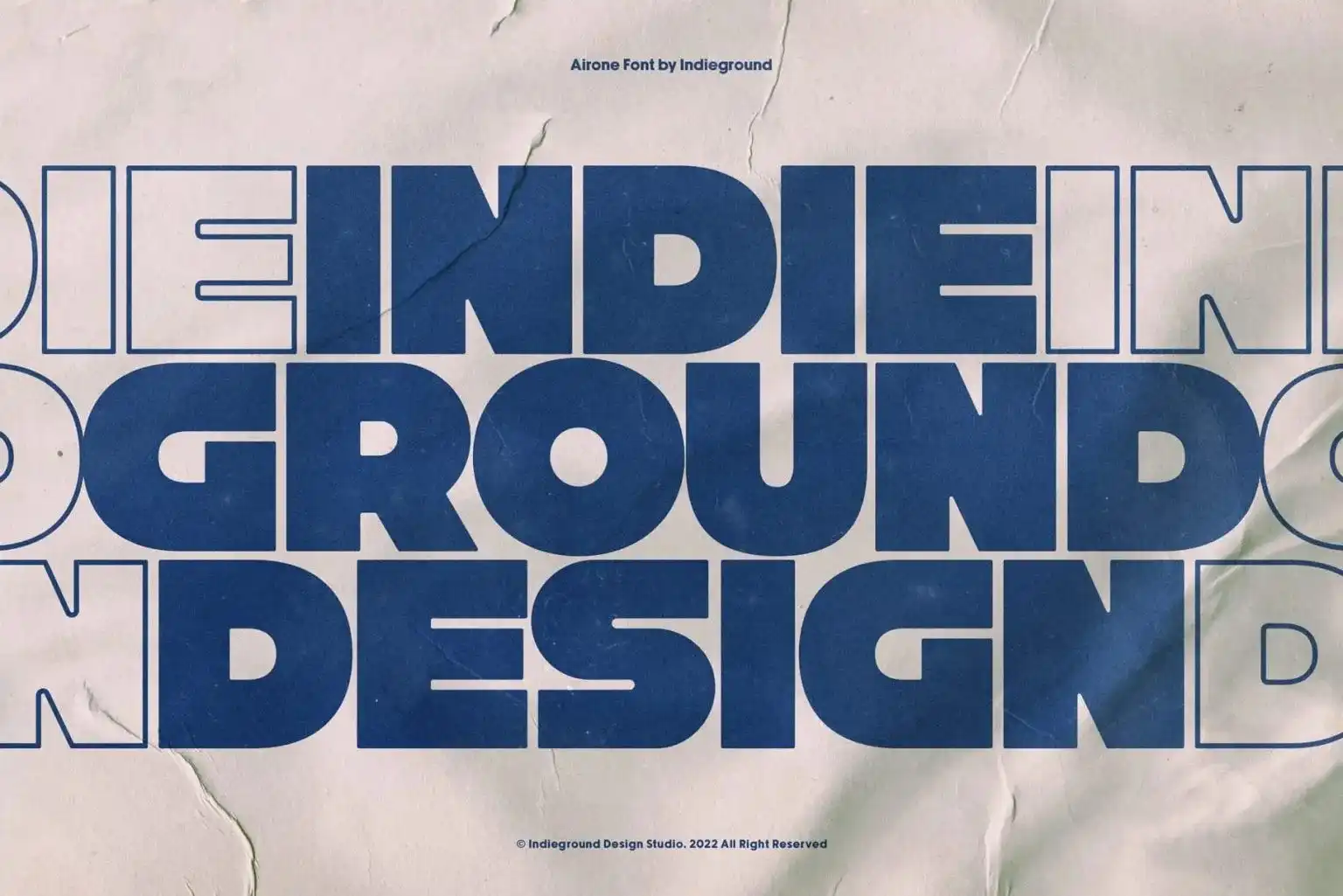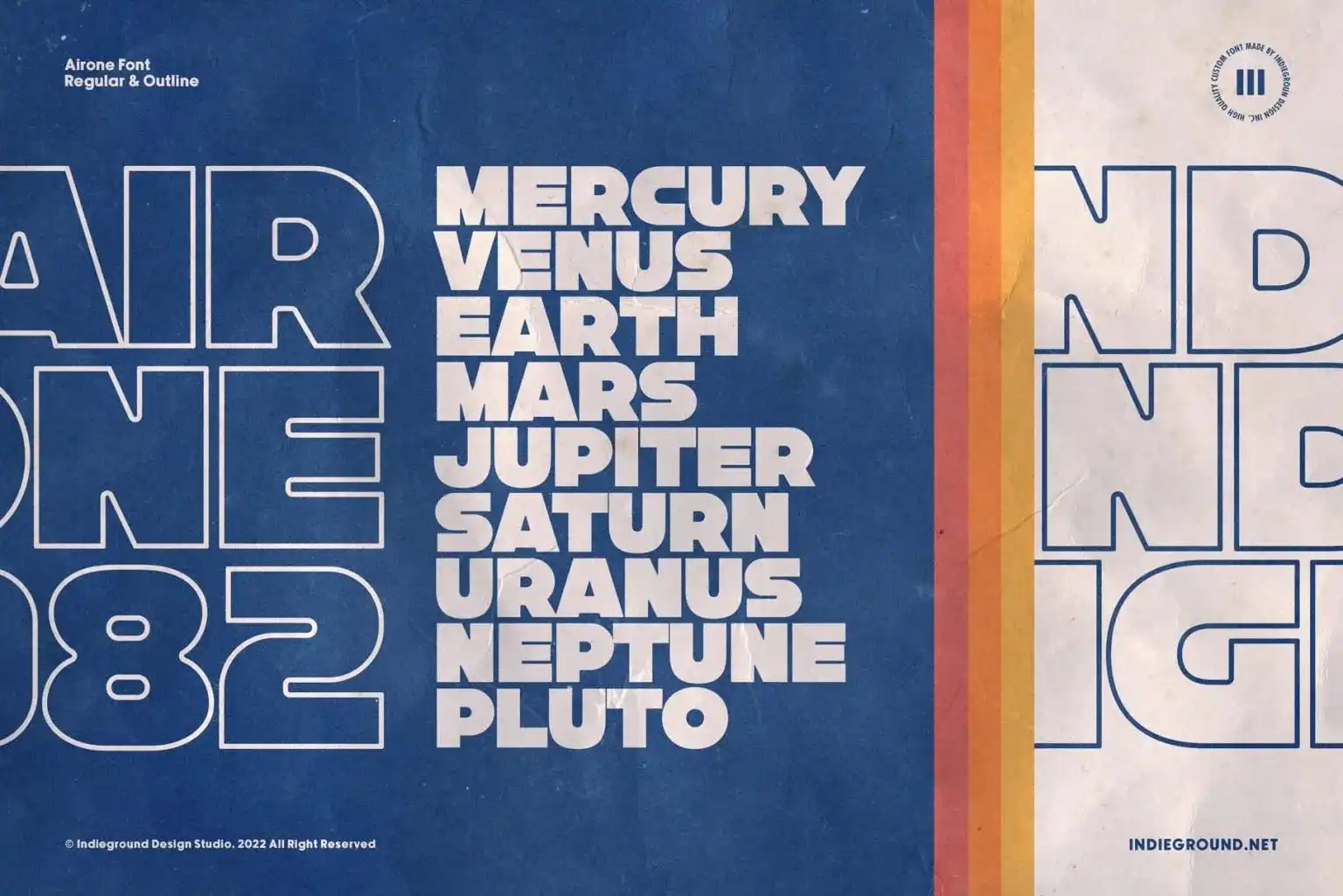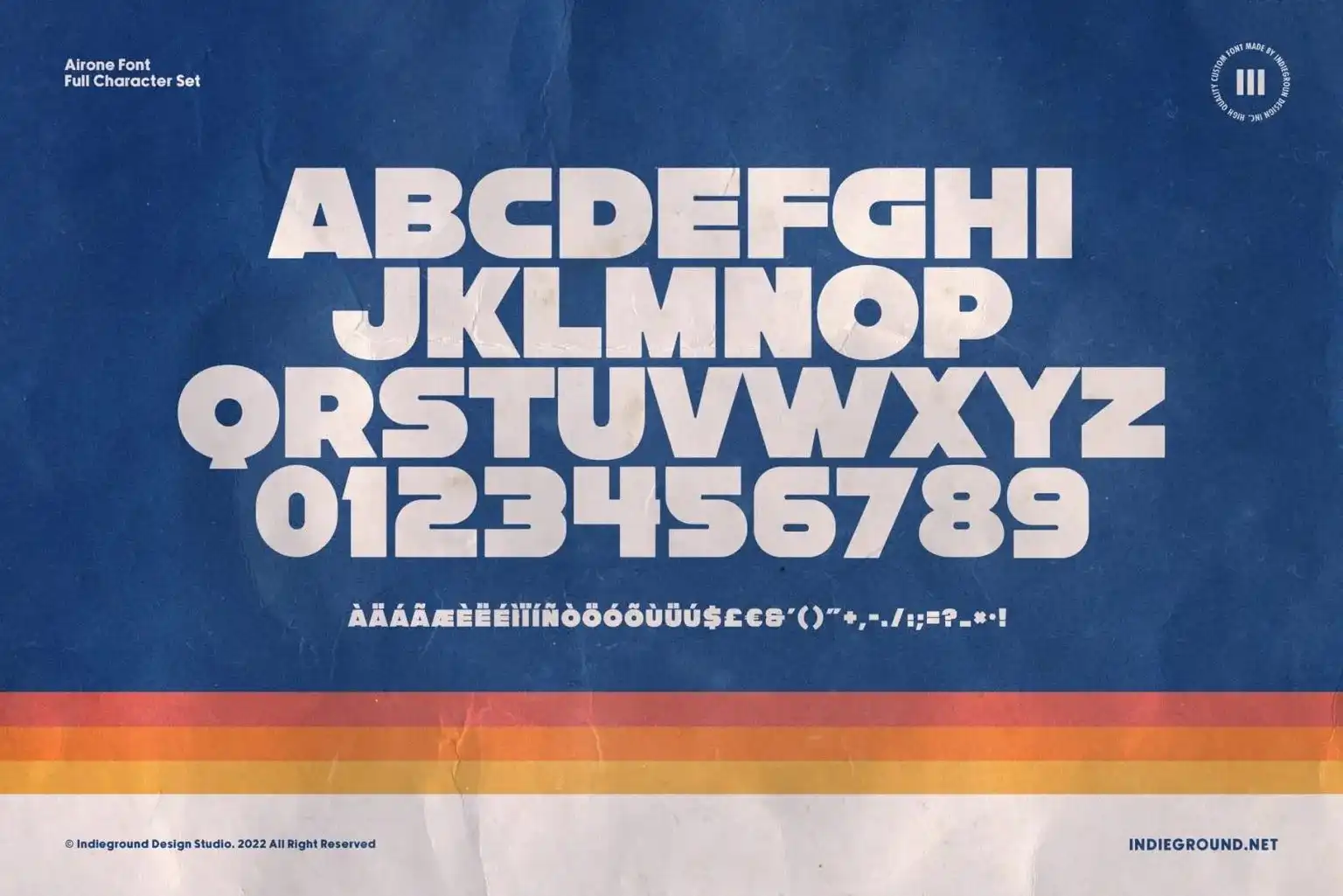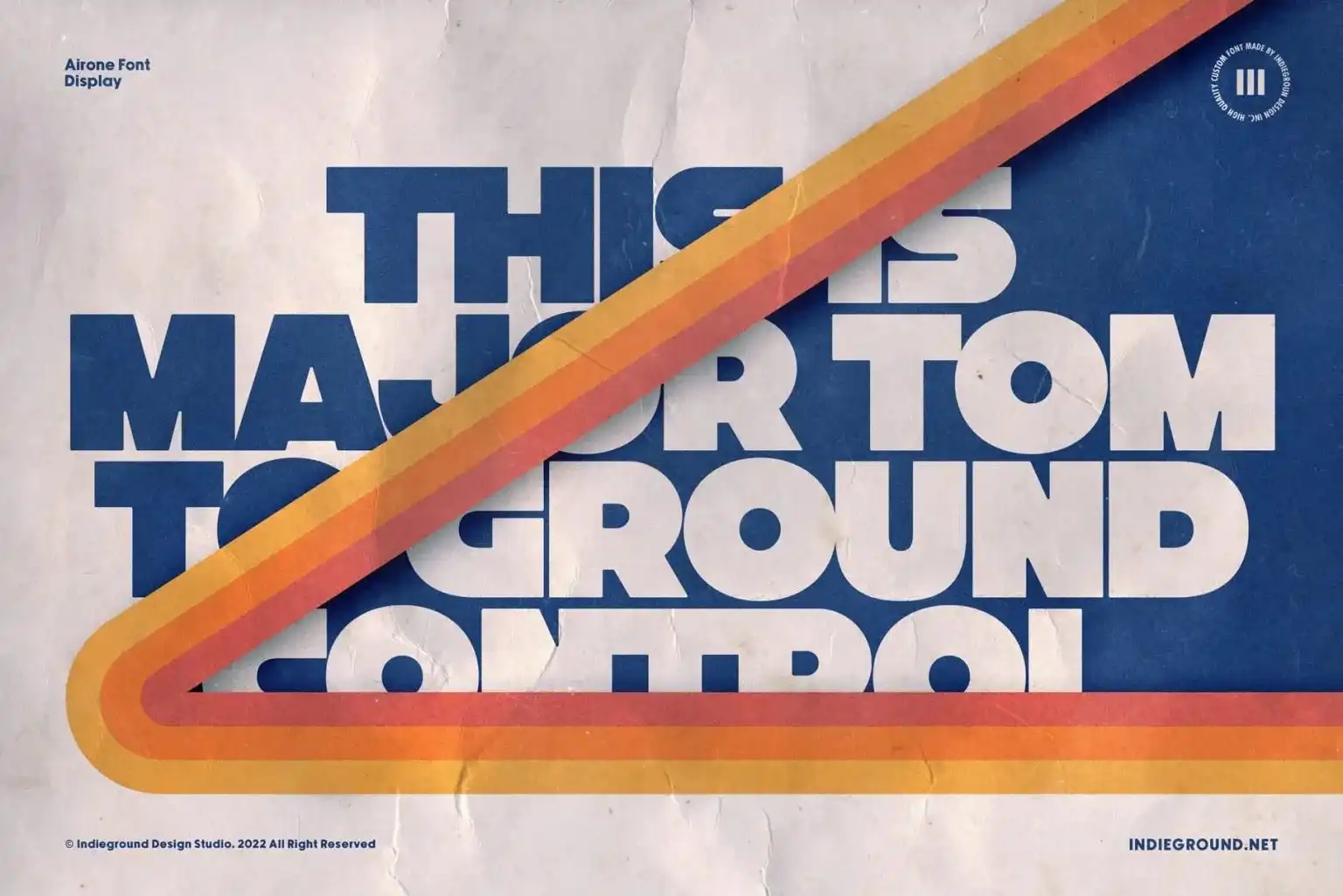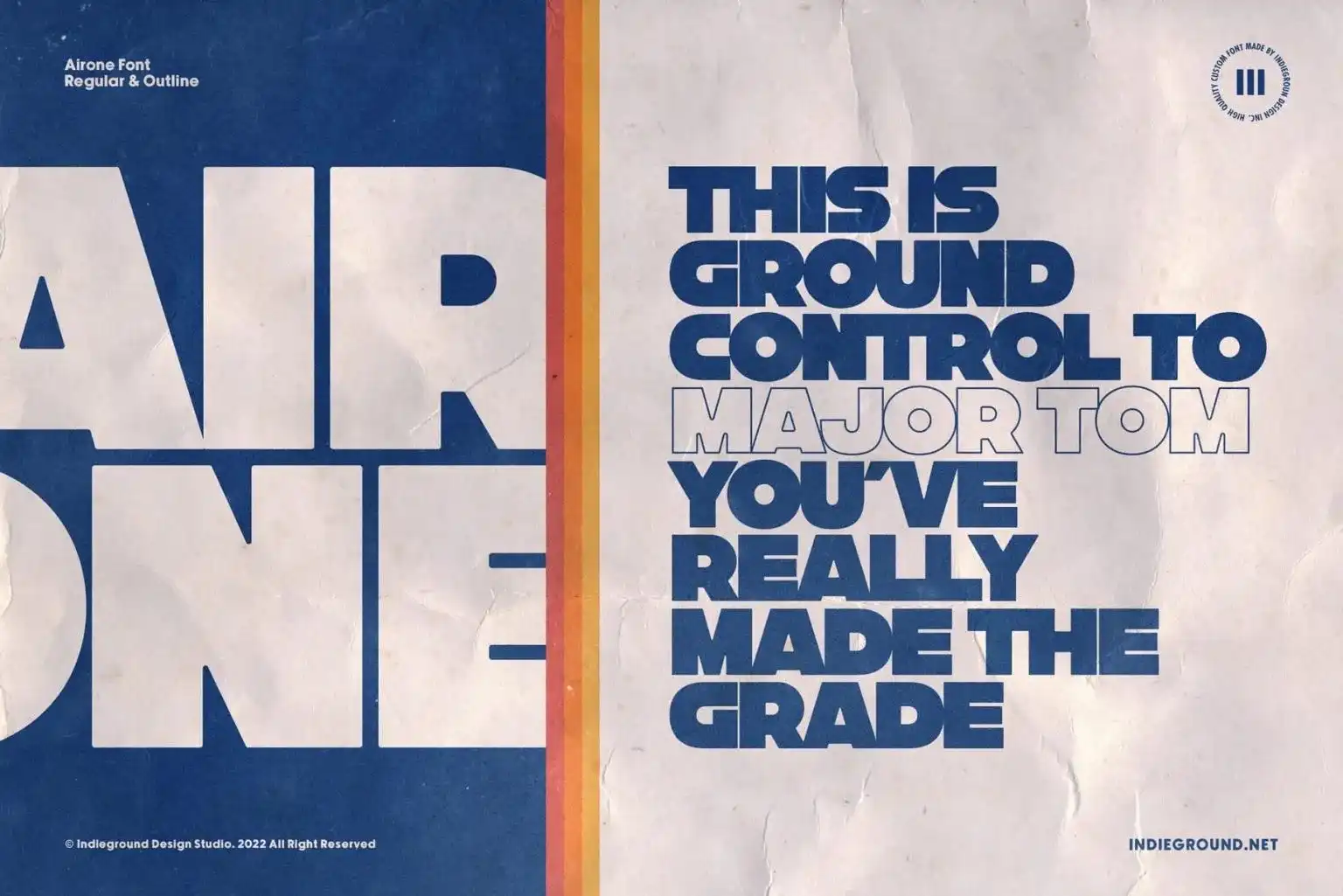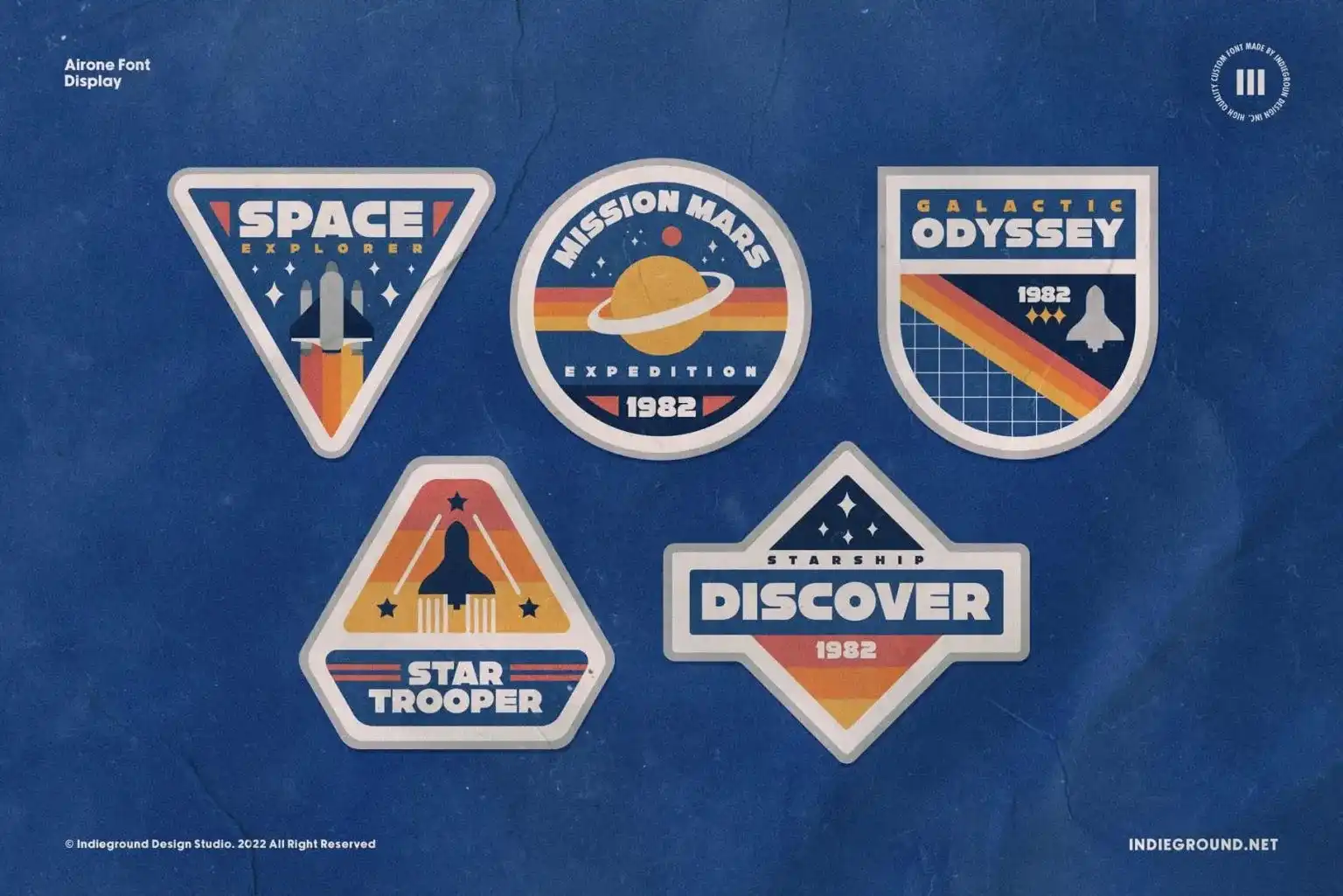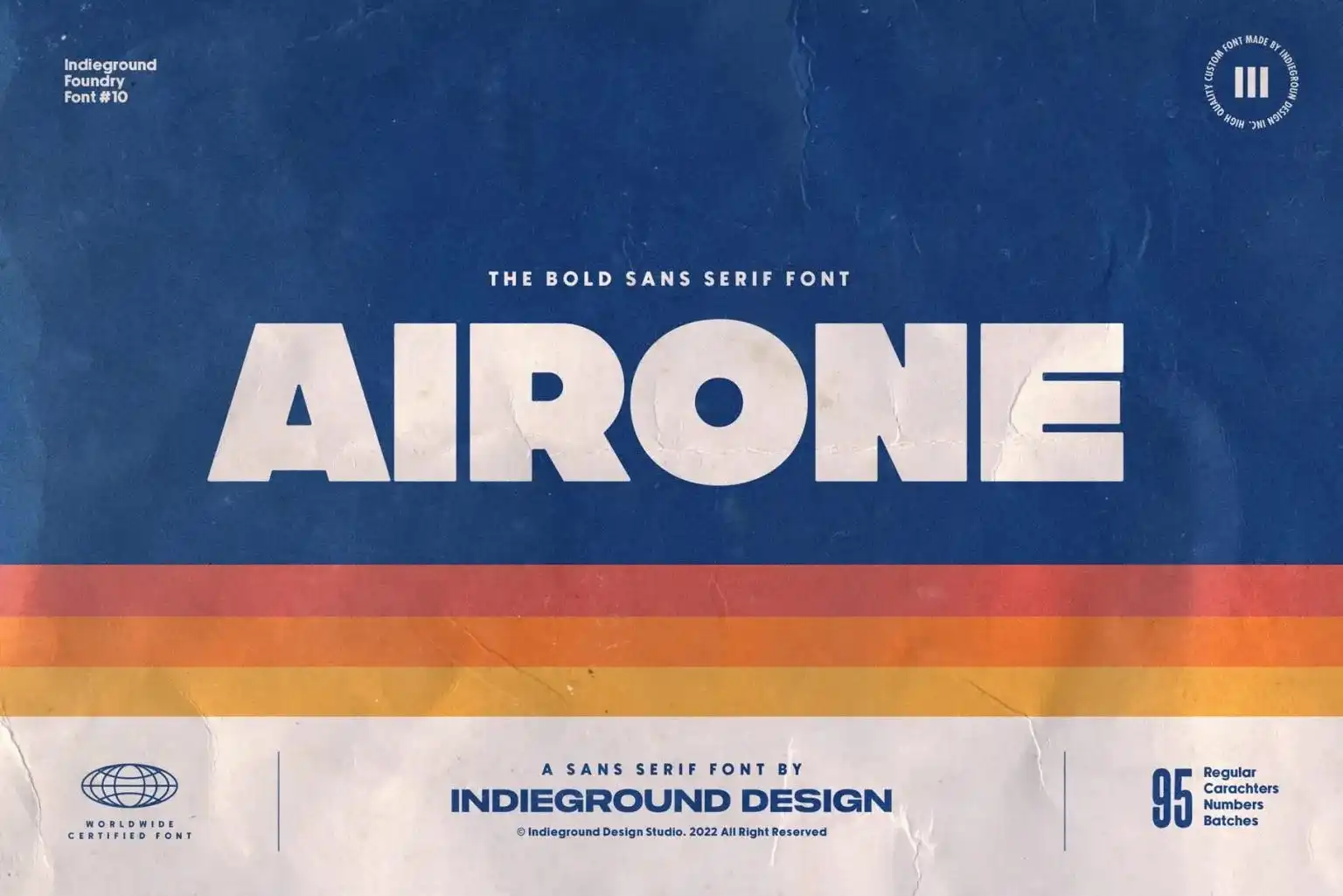
Introducing the fabulous Airone Font! 🎉 This digital download brings instant access to a typeface that’s bursting with personality and charm, perfect for all your creative projects. Whether you’re designing a bold poster or crafting eye-catching headlines, this font is here to make your work shine! ✨
Airone is an extra-bold display font crafted by the talented Indieground Team. With its striking presence, this font is ideal for heavy titles and headlines, adding a dynamic flair to your designs. It effortlessly blends retro and contemporary styles, making it a versatile choice for any graphic design or typography project. Plus, you can try out the free demo version for personal use!
- Bold and Iconic Style: Makes your designs stand out with its unique character.
- Full Character Set: The regular version includes a comprehensive range of characters, numbers, and special symbols.
This font is perfect for graphic designers, typographers, and anyone looking to add a stylish touch to their projects. Whether you’re working on branding, packaging, or digital content, Airone Font will elevate your designs! 🎨
Bring your designs to life with the eye-catching Airone Font! This font is not just a tool; it’s a source of inspiration for your creative journey. 💖